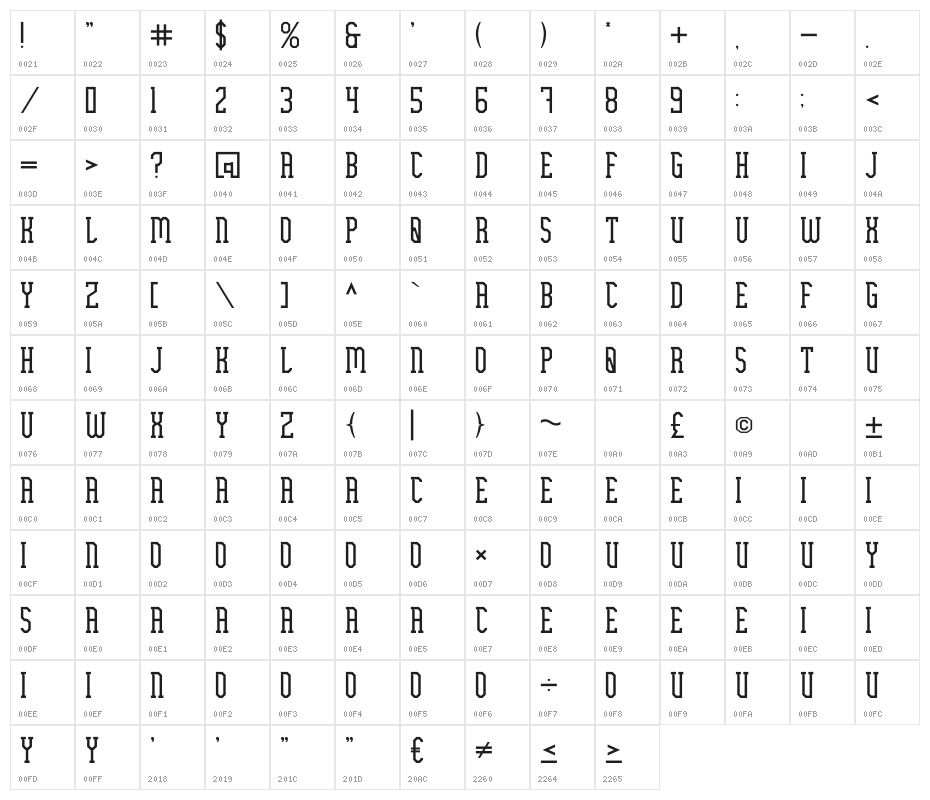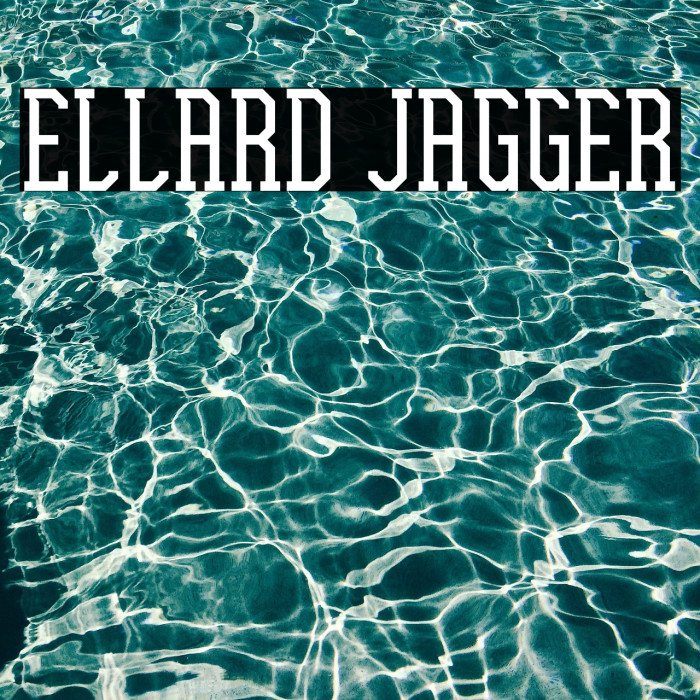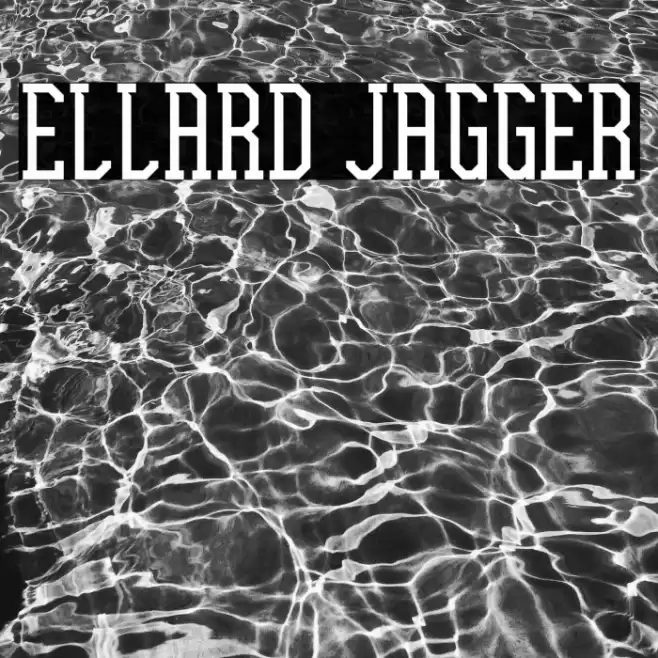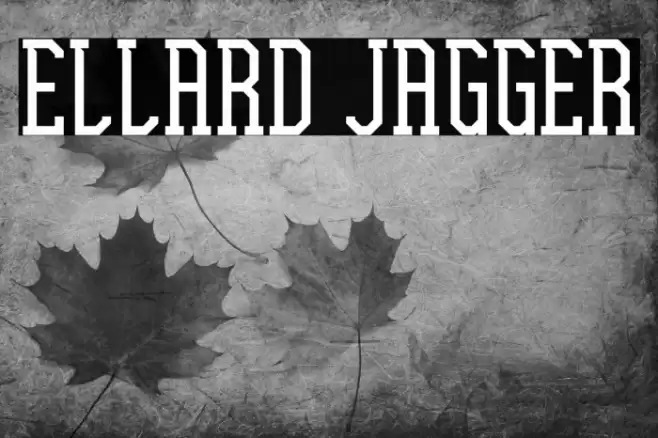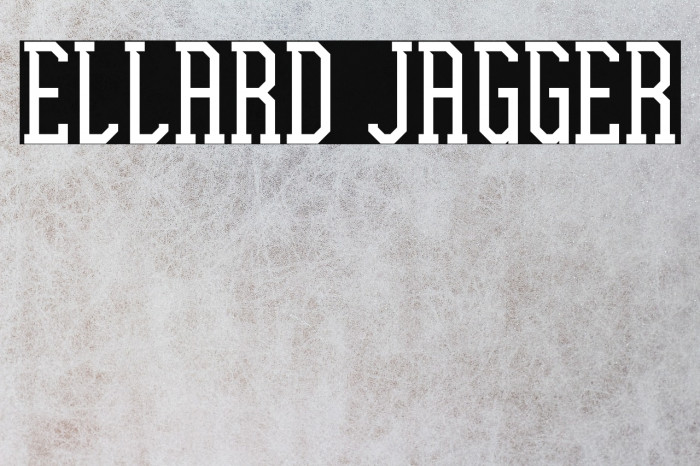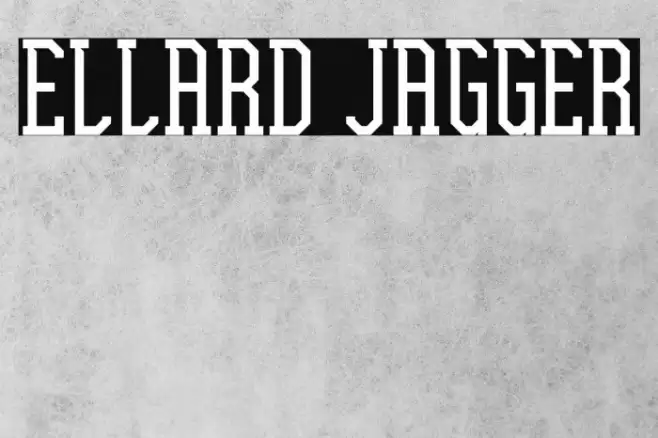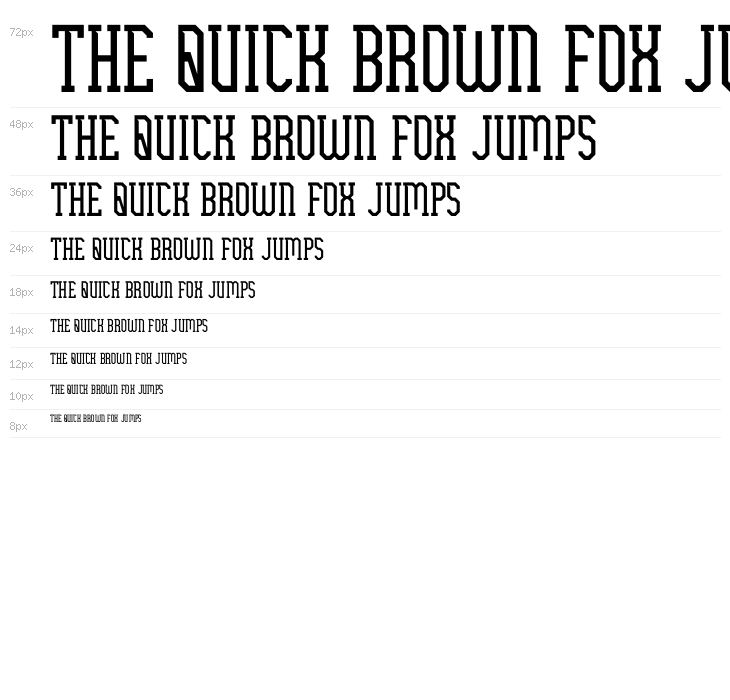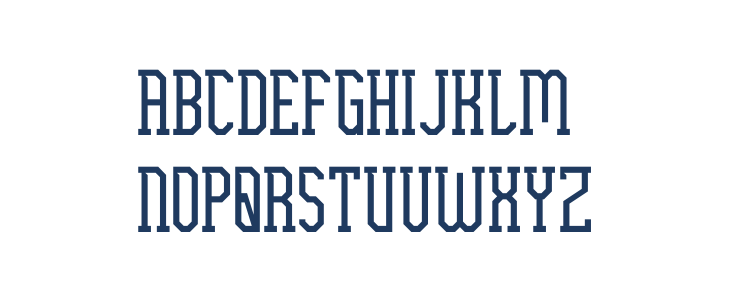
Ellard Jagger Font
Ellard Jagger Description
This font features a bold and geometric design with a distinctive, modern flair. The uppercase letters are tall and narrow, with sharp angles and clean lines that create a sense of precision and strength. The lowercase letters maintain the same geometric style, offering consistency across the typeface. Numbers are equally bold and structured, making them highly legible. The special characters complement the overall design, ensuring a cohesive look. This font's unique style makes it ideal for projects that require a strong visual impact.